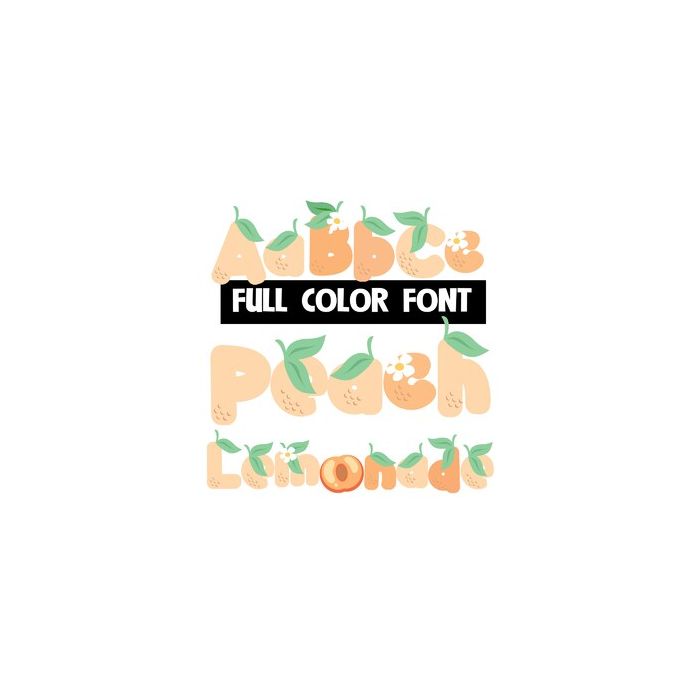
This full-color font features peach citrus fruit with peaches for the O's.. You can access another version of the letters by using the alt characters in Silhouette's glyph map.